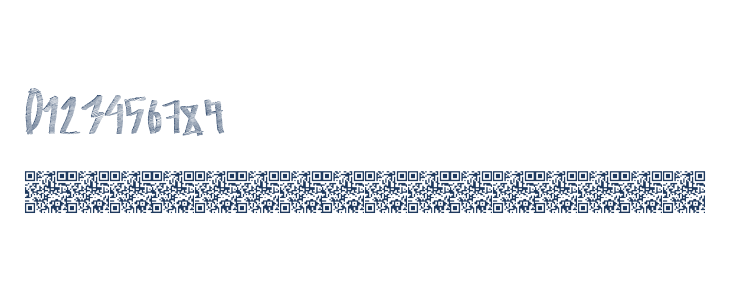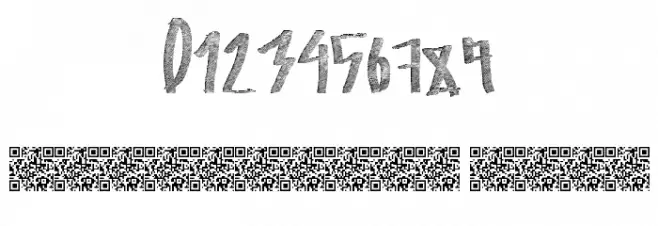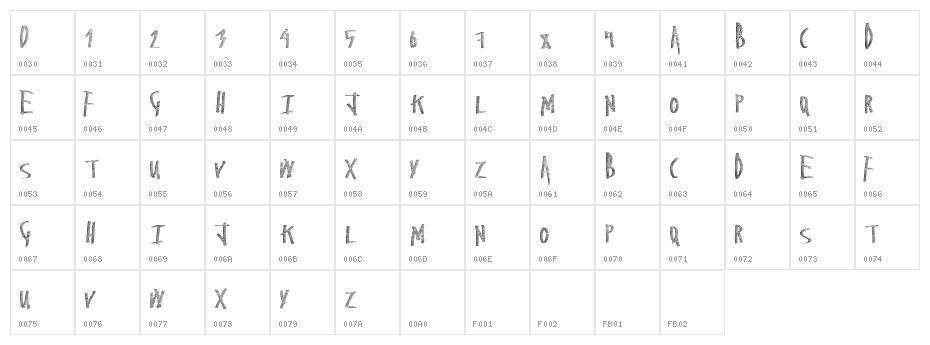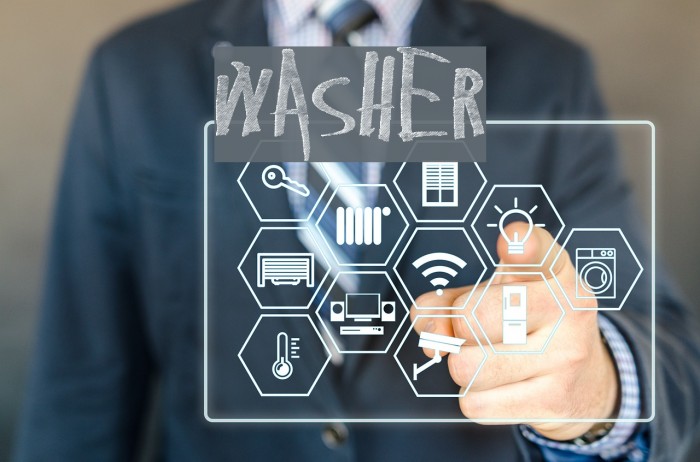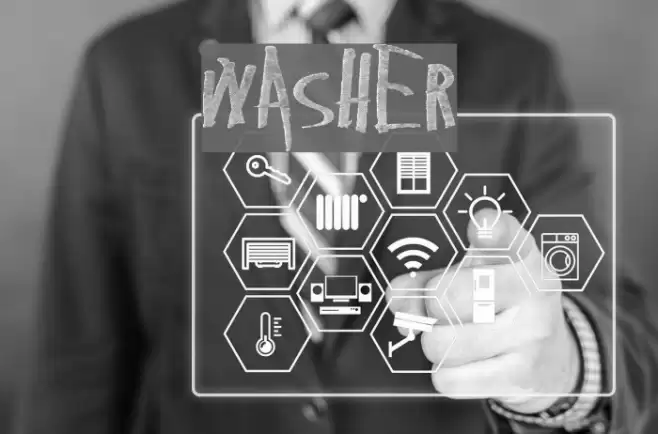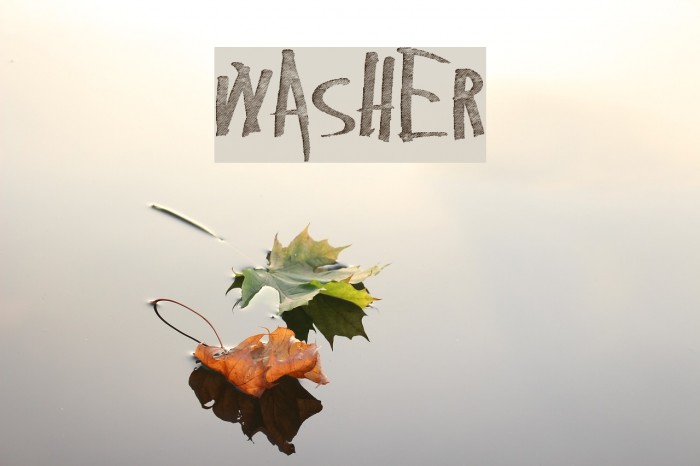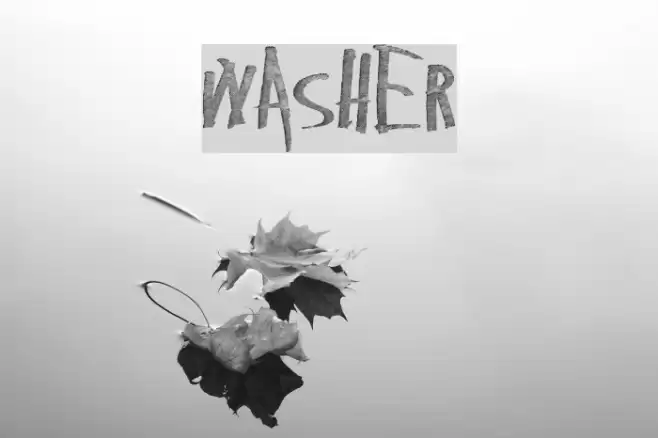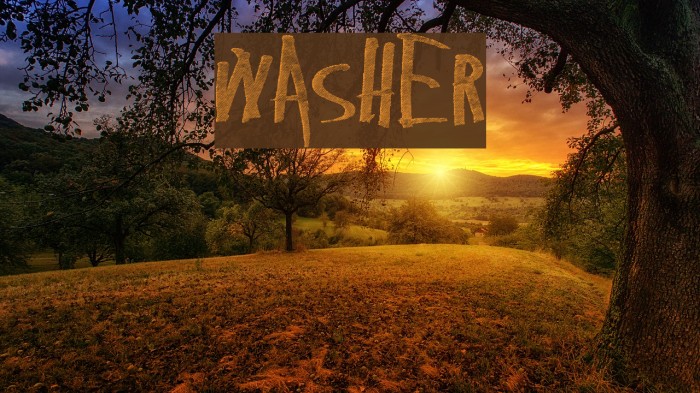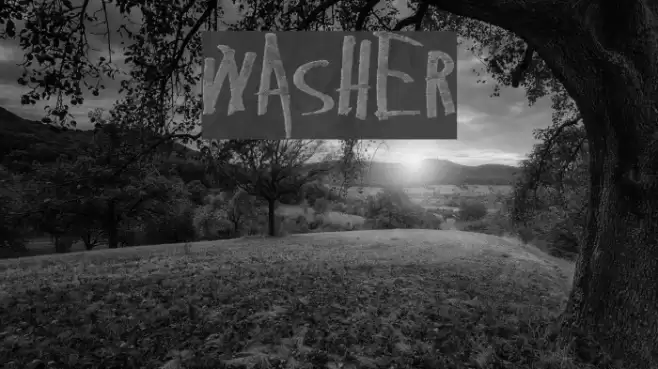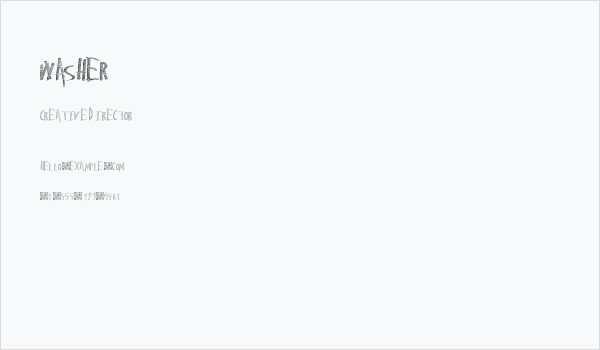
washer Font
washer Description
This font features a rugged, hand-drawn style that gives it a unique and artistic appearance. The characters are unevenly textured, resembling brush strokes or chalk on a rough surface, which adds a sense of dynamism and energy. The uppercase and lowercase letters maintain a consistent style, with varying line thickness that creates a visually interesting texture. The numbers and special characters follow the same design principles, ensuring a cohesive look across all glyphs. This font's raw and expressive nature makes it ideal for projects that require a bold and creative touch.
| Proposed Projects | Ideal for artistic posters, album covers, creative branding, and unique logo designs. |